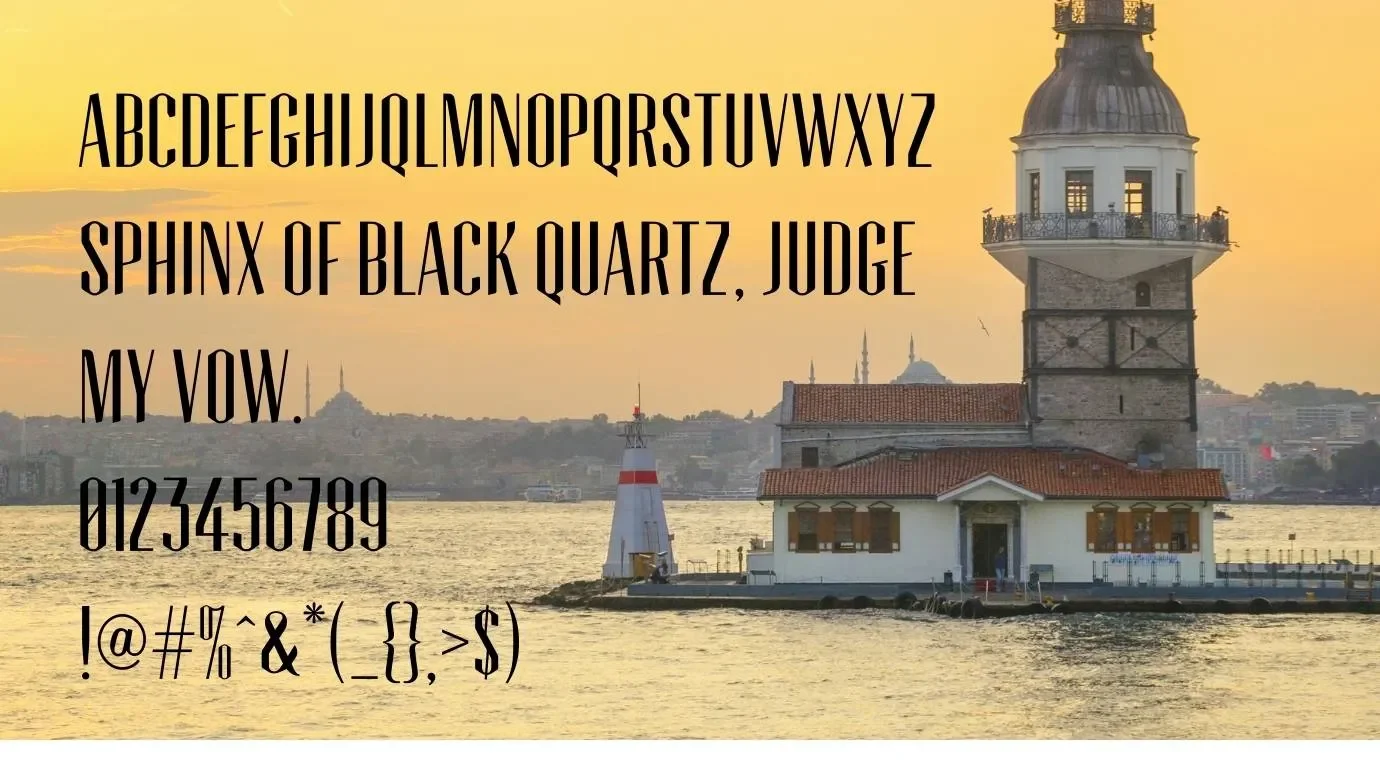
Turkish font is a retro typeface family that is going to be used for huge creative designs. It was designed by a 3D artist Vladimir Nikolic. He created this typeface with 4 weights including Regular, 3D Inverted Regular, Hollow Regular. The design has very quirky letterings that are a good option for your modern designs. It is also used for developing 3D adventure games as well as app designs.
Each and every weight of this typeface offers 53 unique glyphs with 1000 units per em and more than 113 eye-catching characters including uppercase, lowercase, numbers, general punctuations, symbols, and icons that can be used in the CSS. This multi-talented typeface gives a significant look to your headlines and titles as well as short paragraphs.
Reason to Use Turkish Font
If you want to get satisfied on behalf of your clients and customers then adopt this typeface for your regular designs. Because it has a great look that would give also the humanist feels to your designs. It is very suitable for logos, posters, banners, art designs, Prints on clothes, brochure layouts, magazine covers, game development, app designs, Powerpoint presentations, and much more.
Due to its impressive letterforms and superb look, you can use this font to create such fantastic headlines and titles. You can also use it for creating Youtube thumbnails for your videos or some other channel arts. It can be also utilized within an organization for official documentation, reports, records, invoices, ads descriptions, as well as creating store/shop names, product titling, and magazine or newspaper headings.
Turkish Font Family (Includes Total 4 Typeface)
- Turkish Regular
- Turkish 3D Regular
- Turkish 3D Inverted Regular
- Turkish Hollow Regular
What is a Turkish font?
This is a brand new retro typeface that is a complete font package for your creativity and 3D designs. It comes in 4 weights from regular to 3D Inverted Regular designed by Vladimir Nikolic.